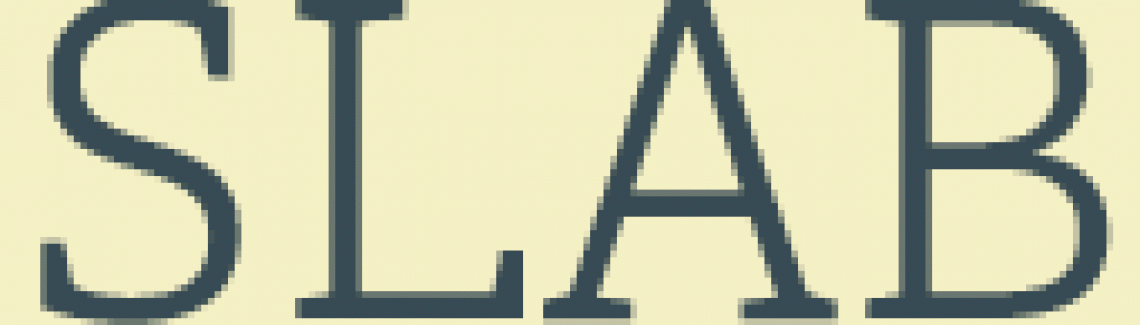
Communication Arts 50th Anniversary
Allan Haley’s latest article features our unpublished font Adelle.
The special issue of Communication Arts magazine for its 50th anniversary, features an article by Allan Haley, asking current top type designers “What is new?”. Allan writes about our newest yet unpublished slab serif design Adelle.